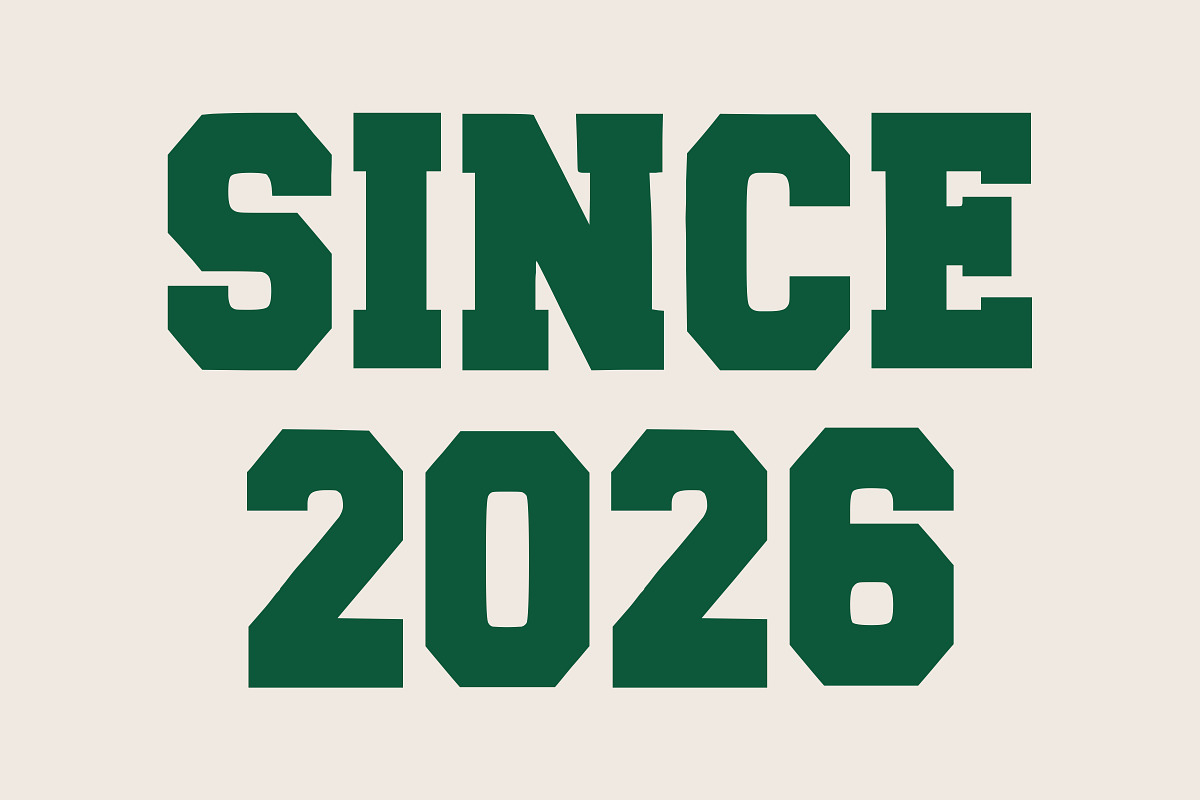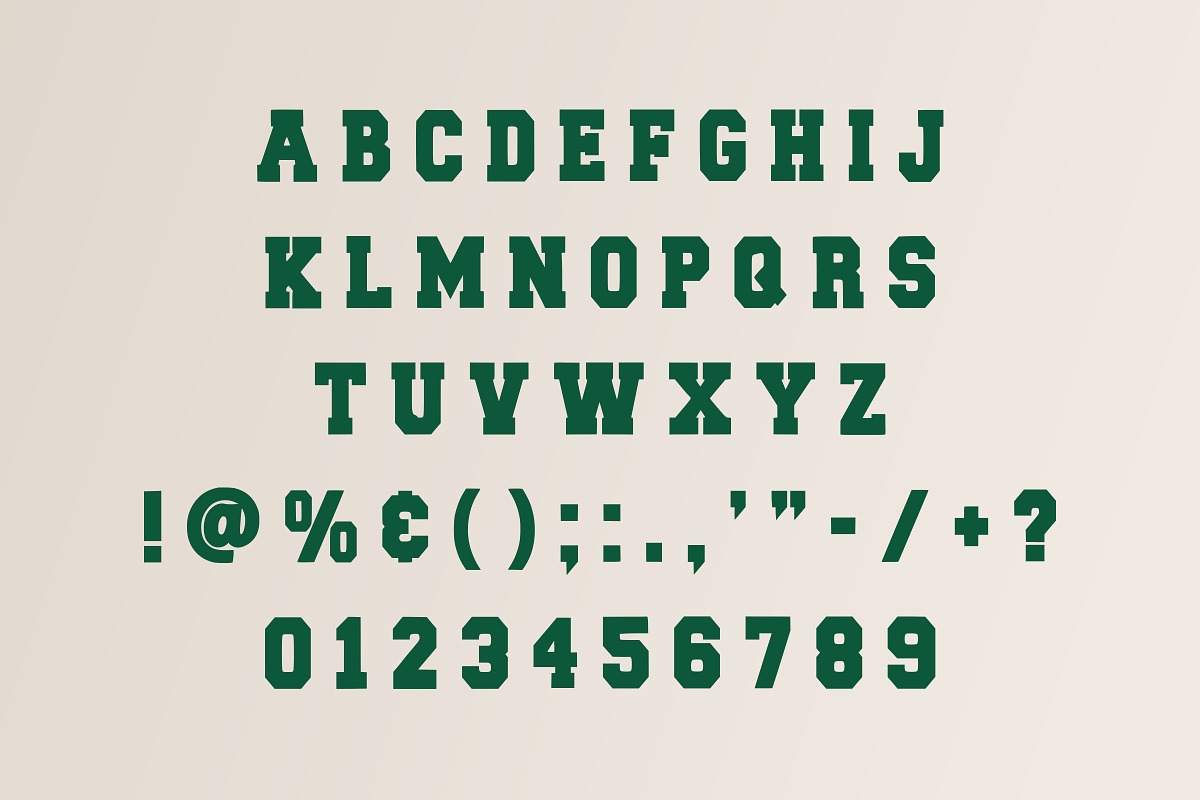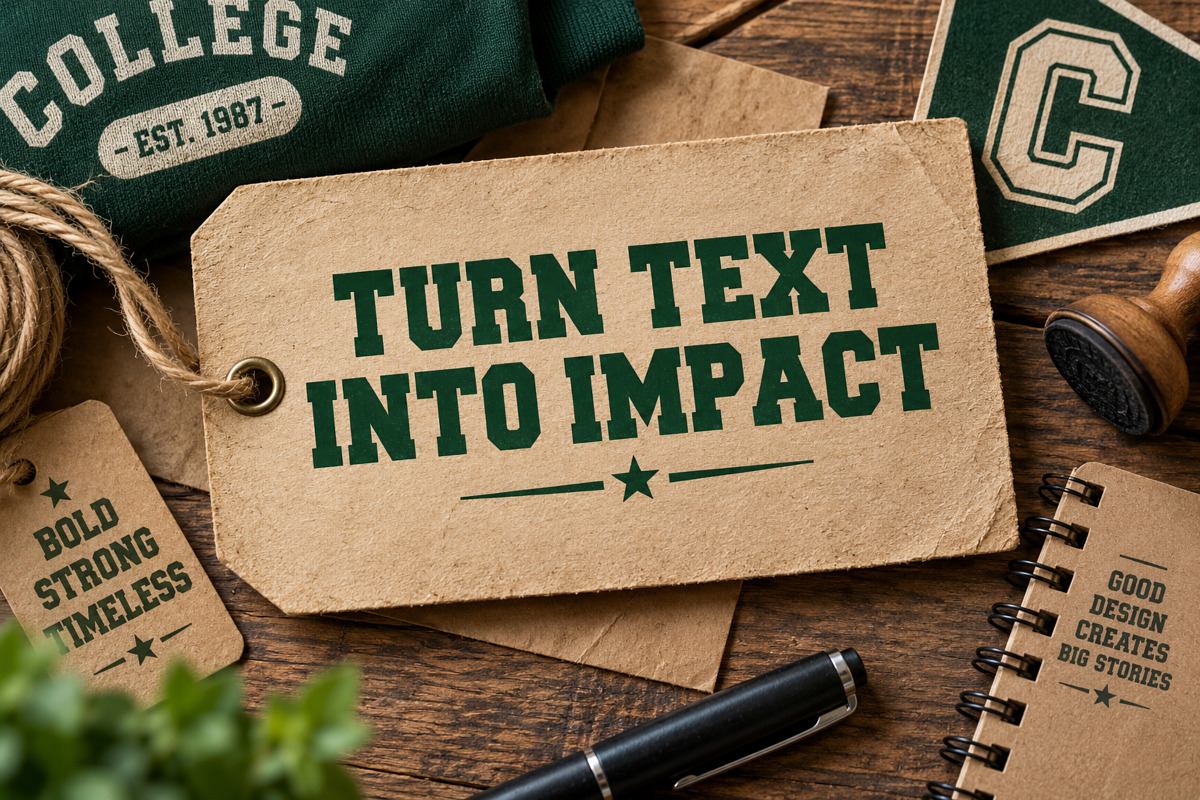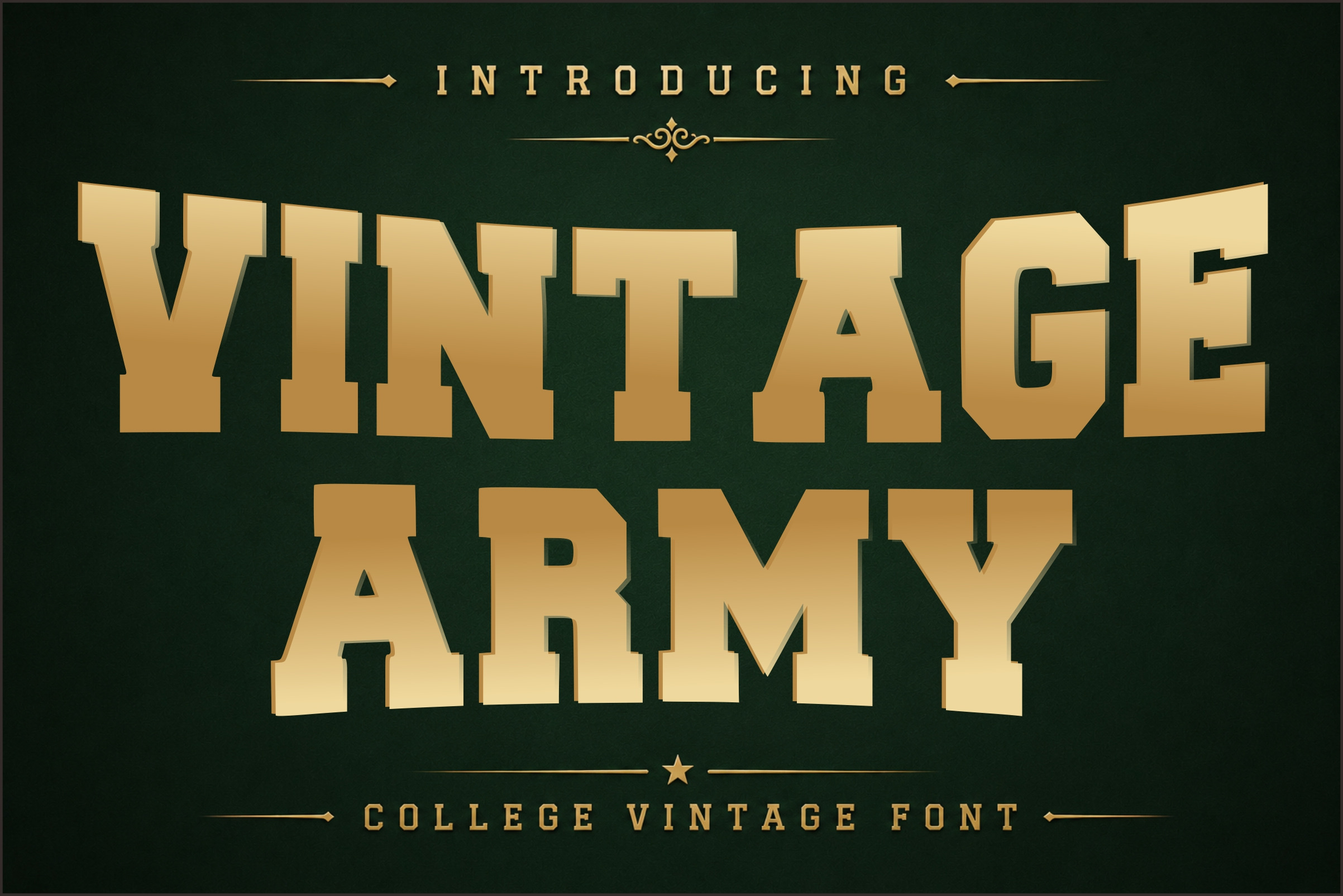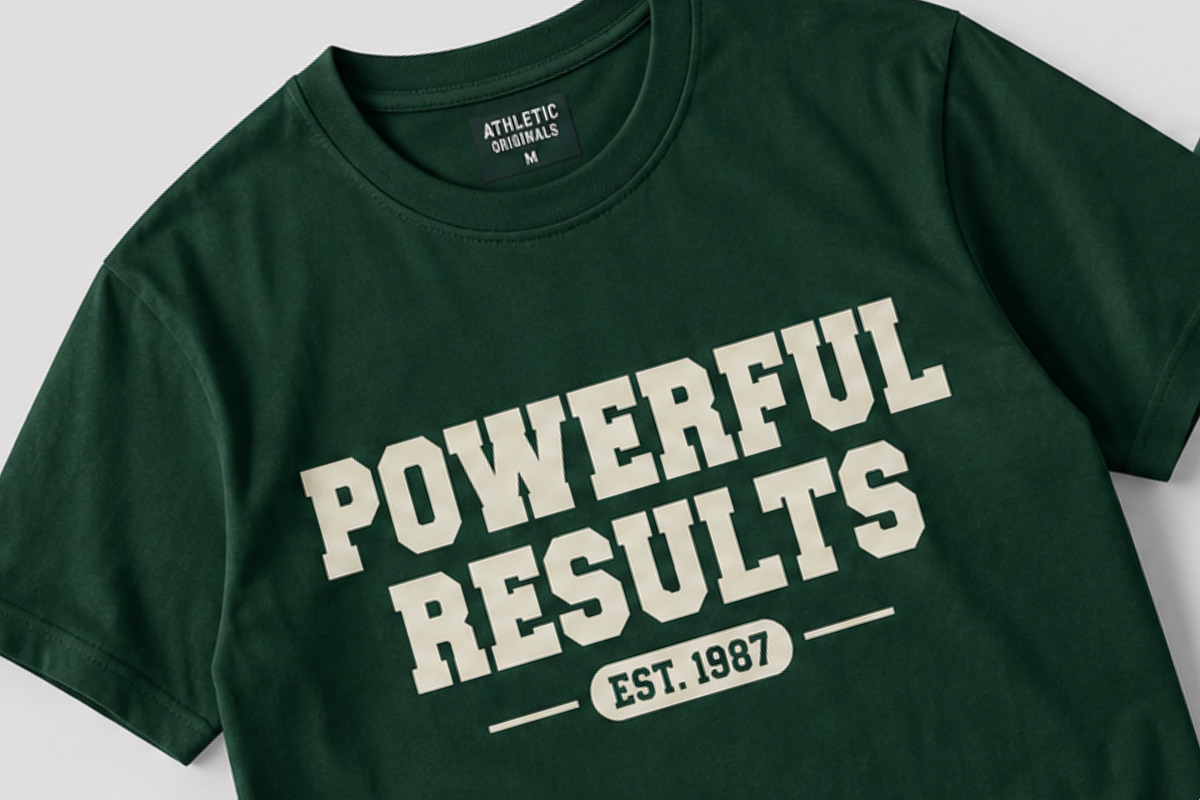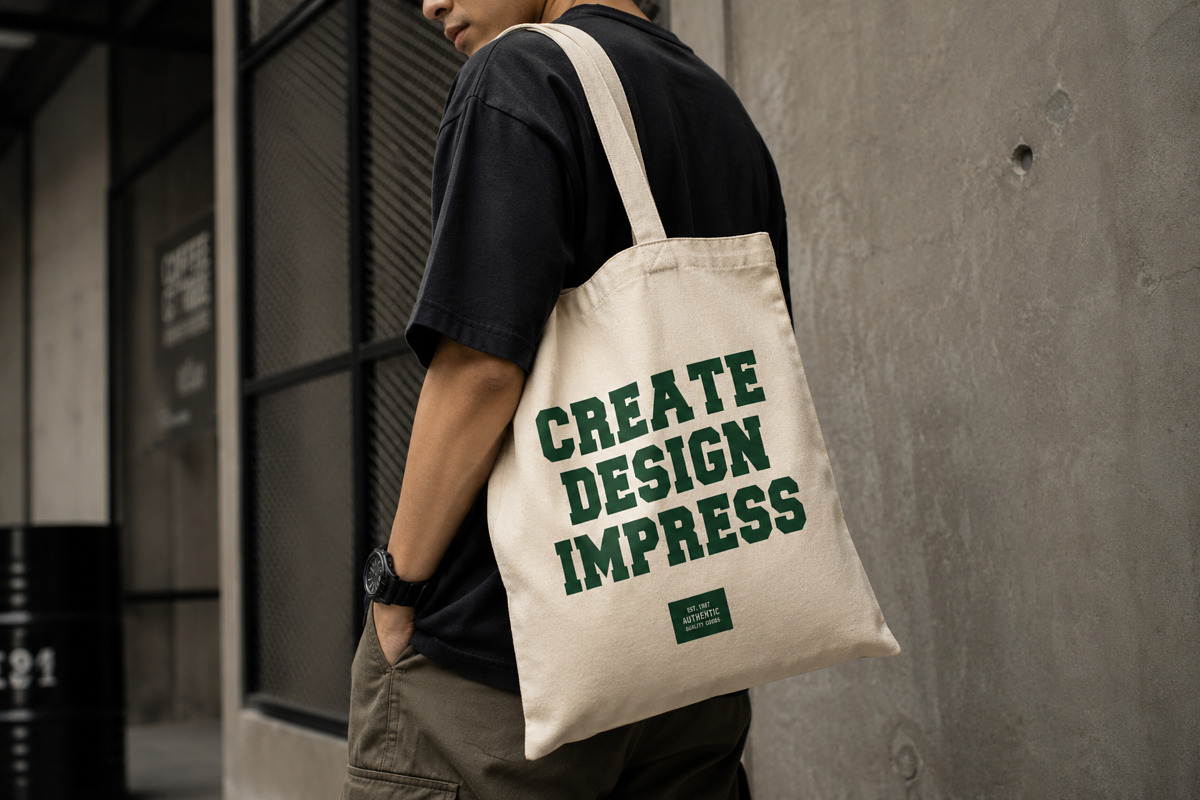
Vintage Army - College Font
Vintage Army is a powerful display font that blends traditional college varsity style with a rugged vintage military vibe. Designed with bold, blocky letterforms and strong geometric structure, this font delivers maximum impact in any design.
Perfect for sports jerseys, team logos, university branding, gym apparel, posters, and retro-themed projects, Vintage Army stands out with its confident and masculine character. The subtle vintage touch makes it ideal for both modern and nostalgic designs.
Whether you’re creating streetwear, merchandise, branding, or bold typography layouts, Vintage Army gives your design a strong, professional, and timeless look.
Best For: > Sports & varsity designs > College/university branding > T-shirt & merchandise > Logo design > Posters & headlines > Vintage & retro themes